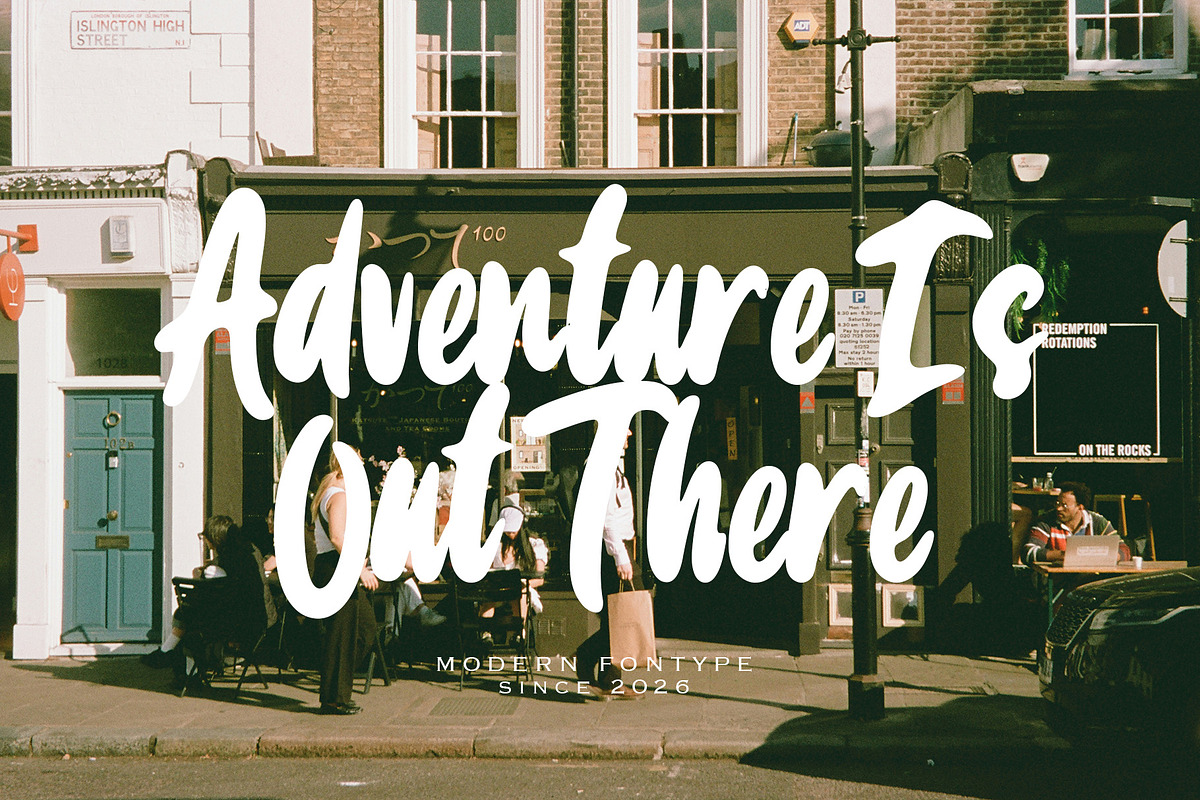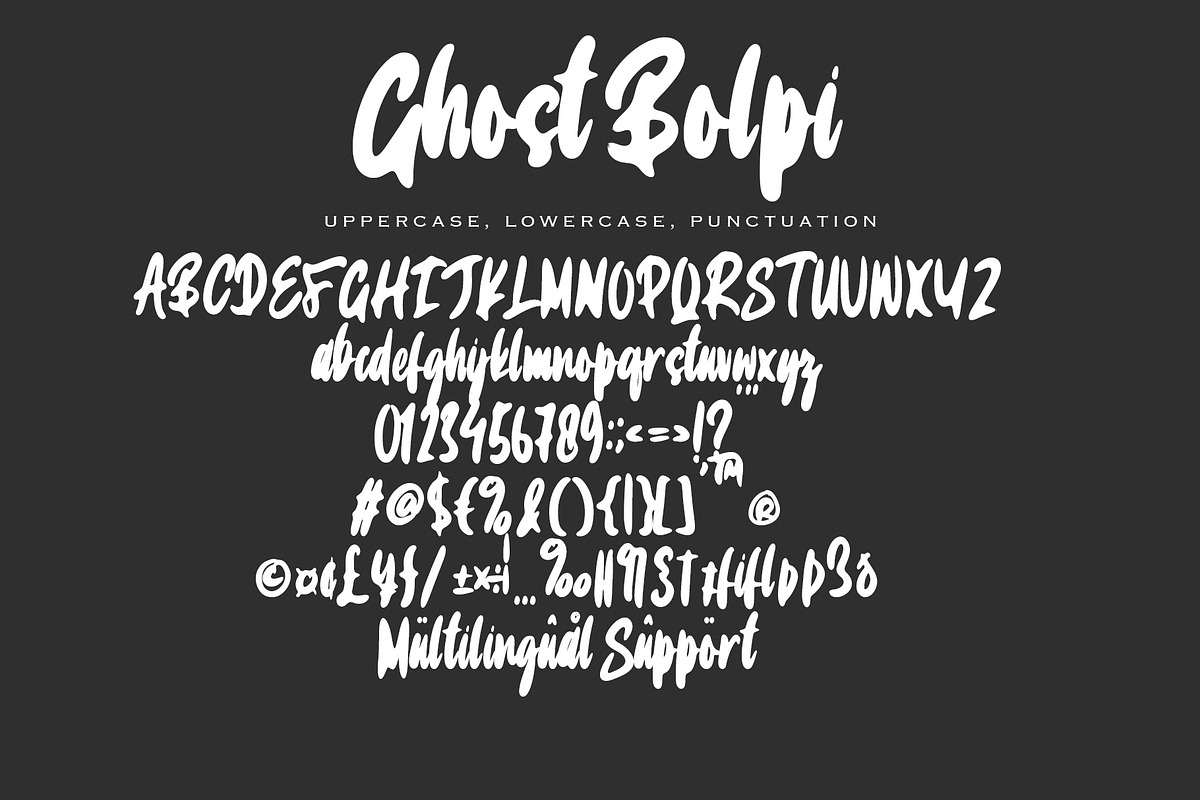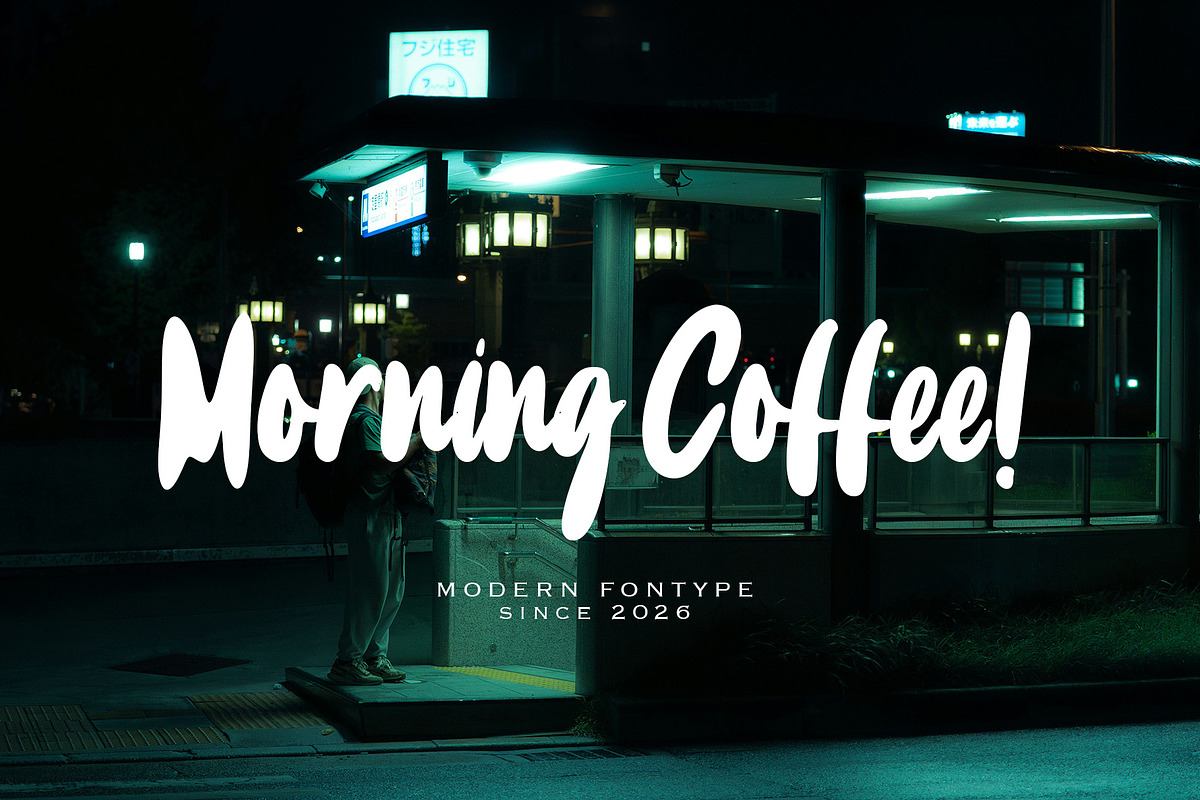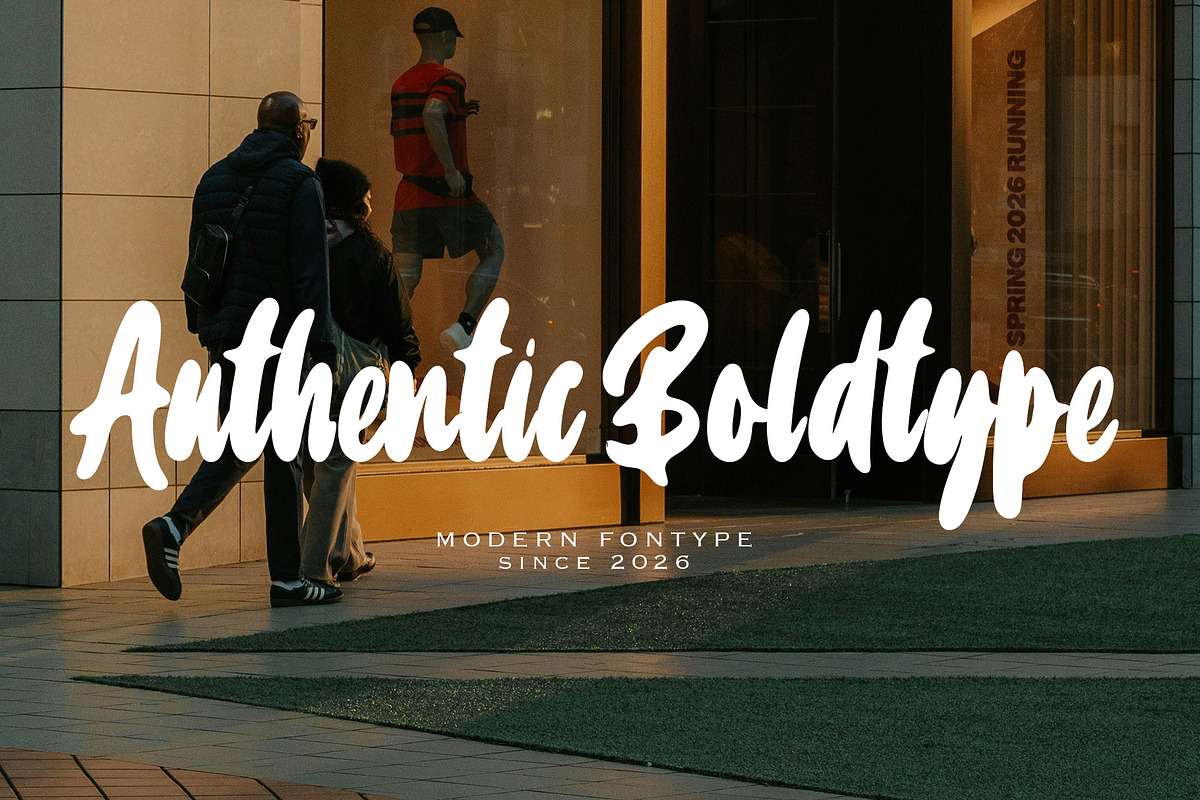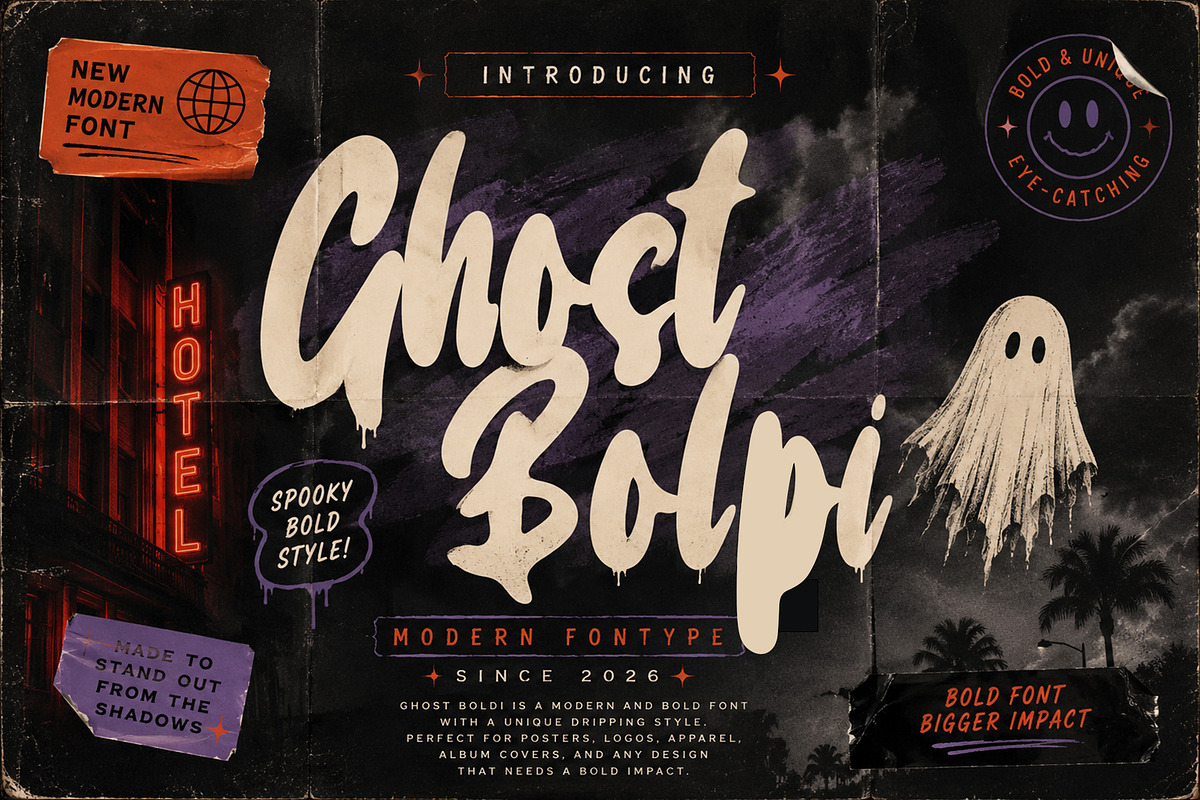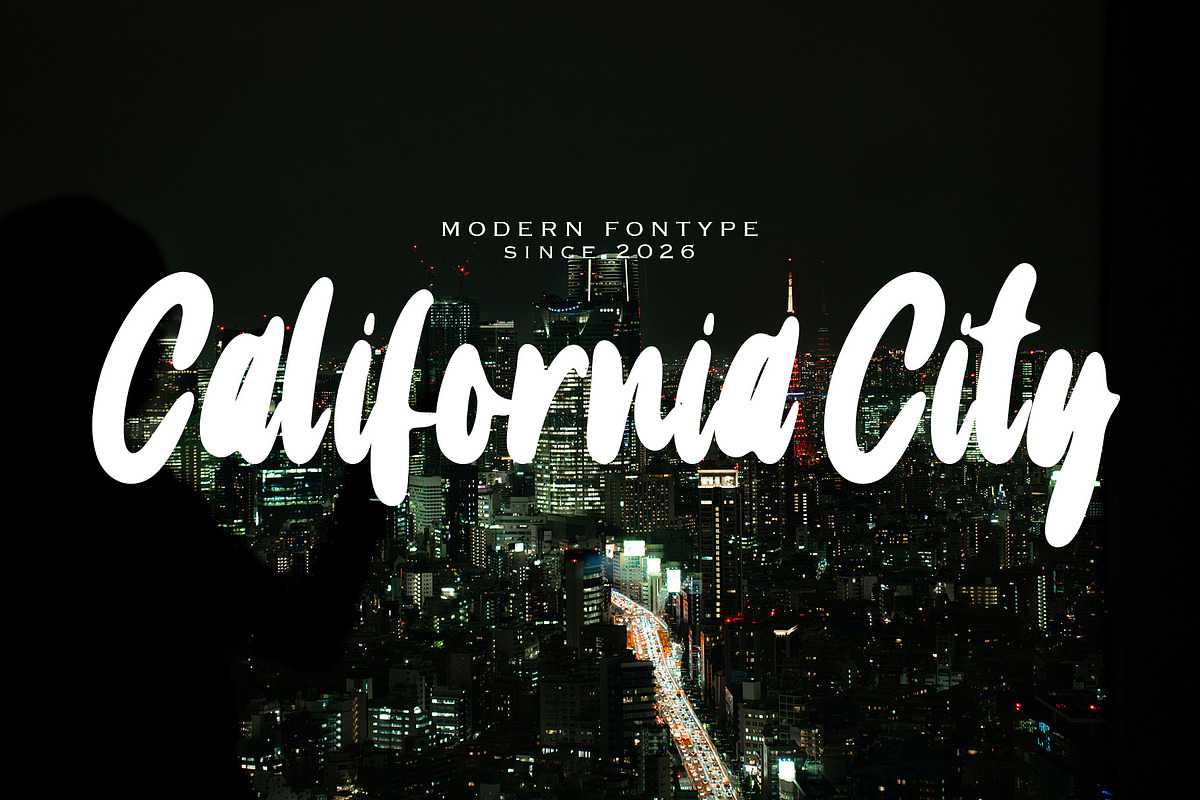
Ghost Bolpi
Ghost Bolpi is a spooky bold display font with a hauntingly playful personality and striking dripping details. Designed to capture the mysterious atmosphere of horror aesthetics, this typeface combines bold handwritten strokes with eerie textures, making it perfect for projects that demand a dark, eye-catching impact. The dramatic letterforms and organic drips create a chilling visual presence while still remaining highly readable and stylish.
Inspired by vintage horror posters, Halloween vibes, haunted cinema signage, and retro spooky culture, Ghost Boldi is ideal for creating standout typography with a creepy yet fun attitude. Whether used for branding, posters, apparel, merchandise, album covers, packaging, gaming titles, or social media graphics, this font delivers a powerful and unforgettable visual statement.
Its bold character and handcrafted horror feel make Ghost Bolpi especially suitable for seasonal designs, horror branding, gothic themes, haunted event promotions, and retro-inspired spooky visuals. If you're looking for a font that feels mysterious, dramatic, and creatively terrifying, Ghost Boldi is ready to bring your ideas out of the shadows.
Features / Style
Bold Horror Display Font
Dripping Letter Details
Spooky & Creepy Aesthetic
Handcrafted Brush Feel
Vintage Horror Inspired
Dark Yet Playful Personality
Eye-Catching for Headlines
Strong Visual Impact